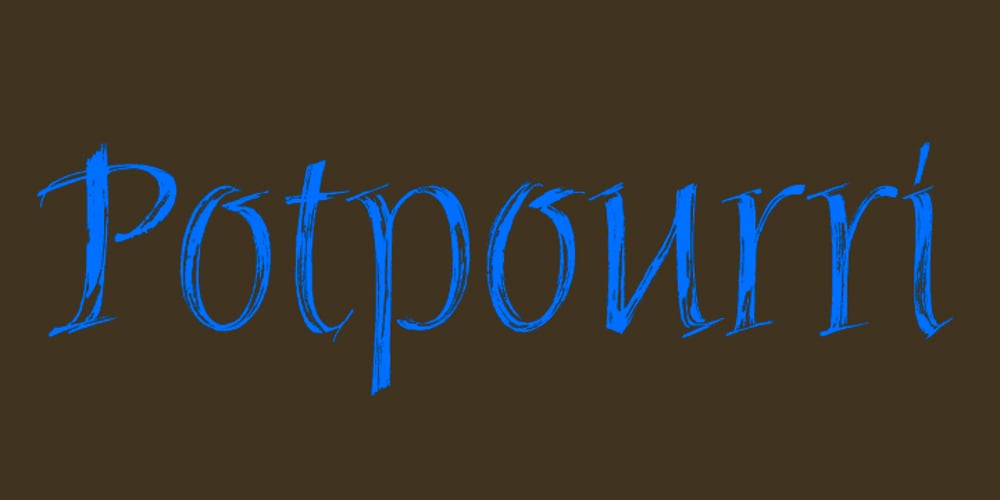
Potpourri Font Family was designed by Gottfried Pott and published by Linotype. Potpourri contains 1 styles and family package options. Potpourri was based on an energetic alphabet written by expert calligrapher Gottfried Pott. To create the elegant yet rugged strokes, Pott cut a pen with a unique fringed tip — from a drinking straw! He then produced an huge series of drafts before deciding on the final alphabet for digitization.